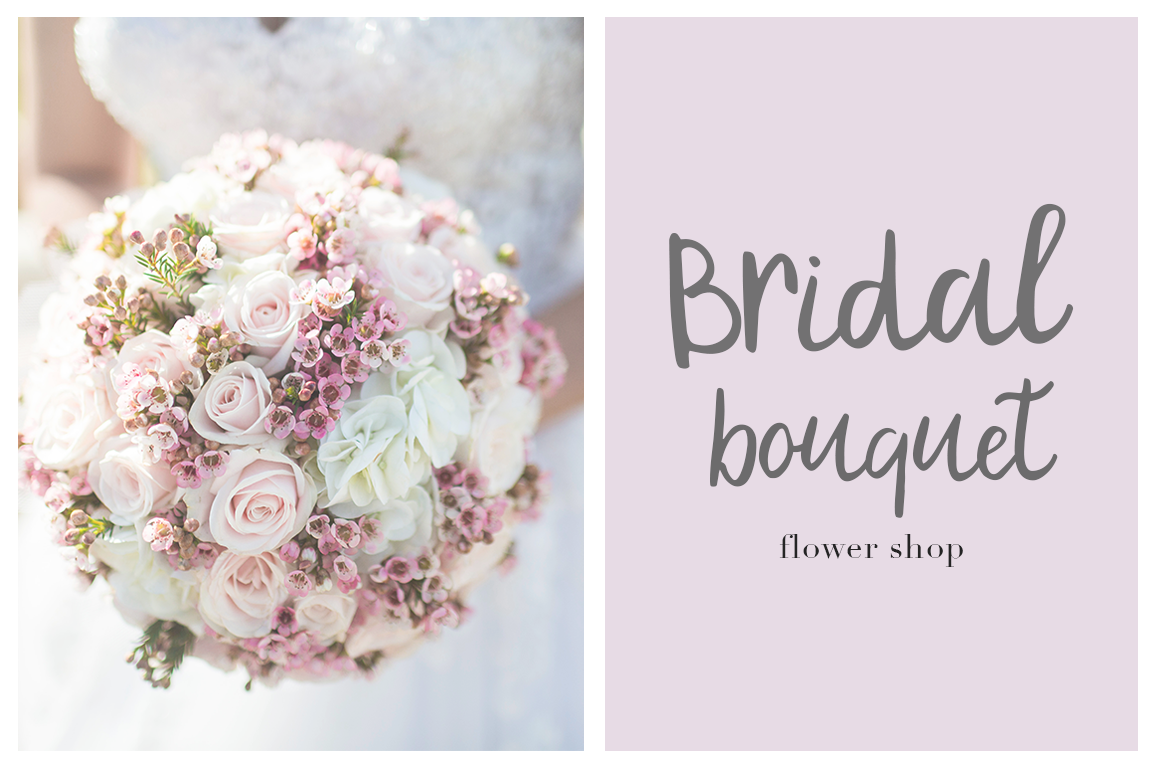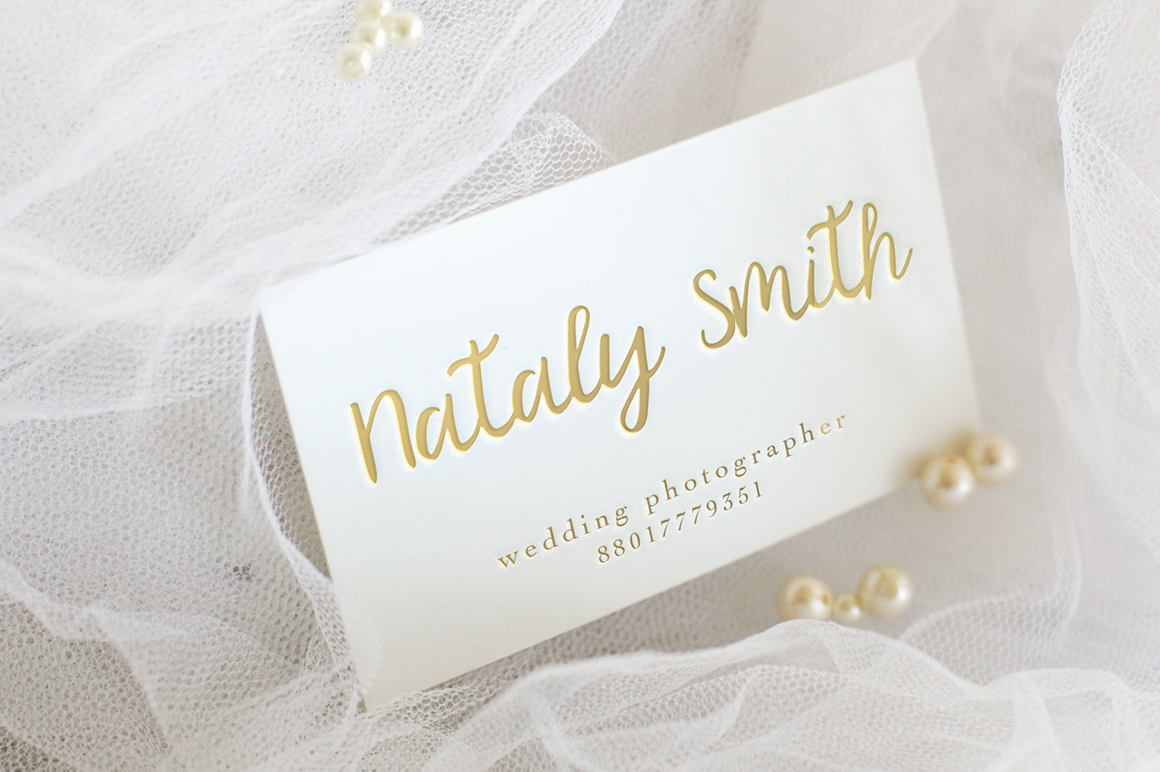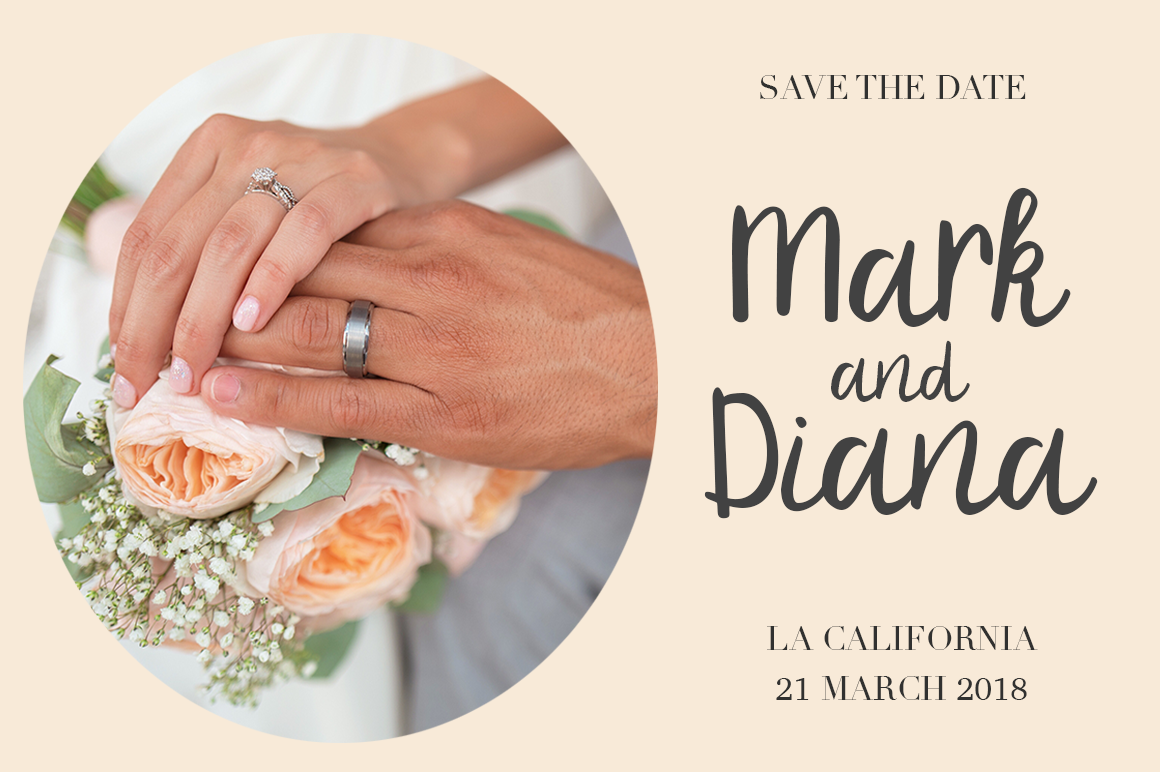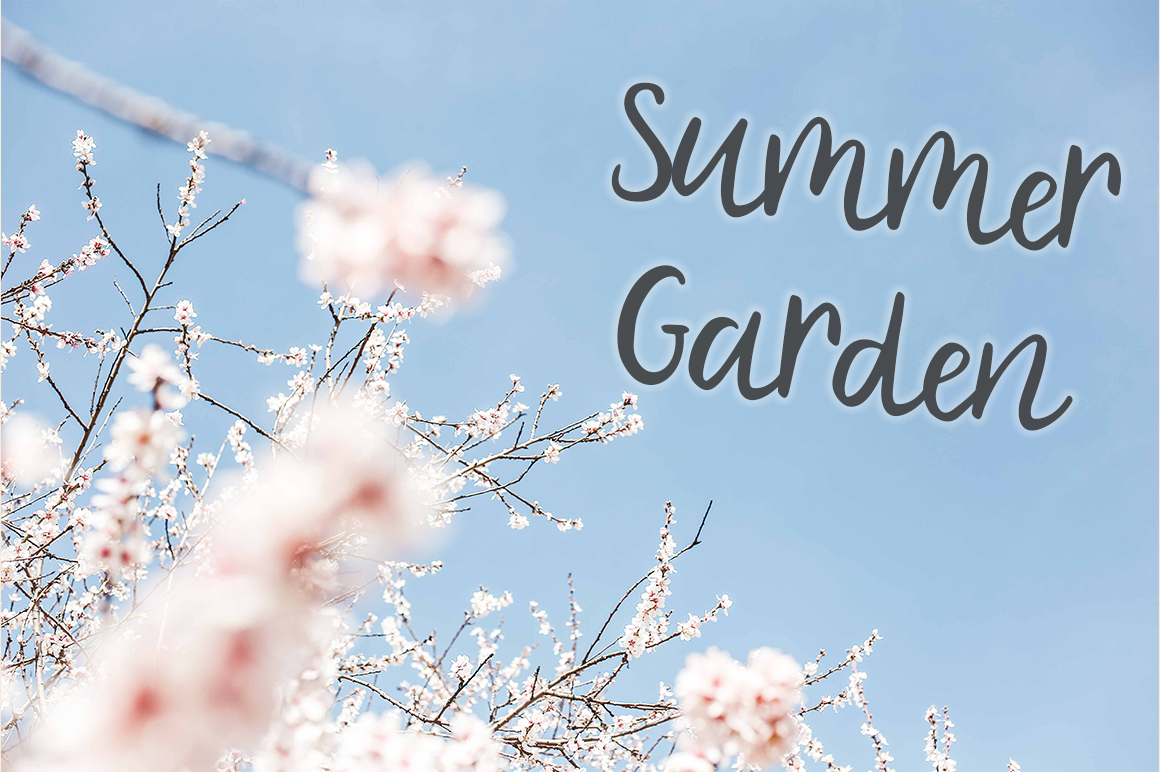
Famous Font
Famous is a romantic and easy to read font, perfect for displays for the most special of moments. With a variable baseline and even weight, Famous is a wonderful script option to use time and time again.